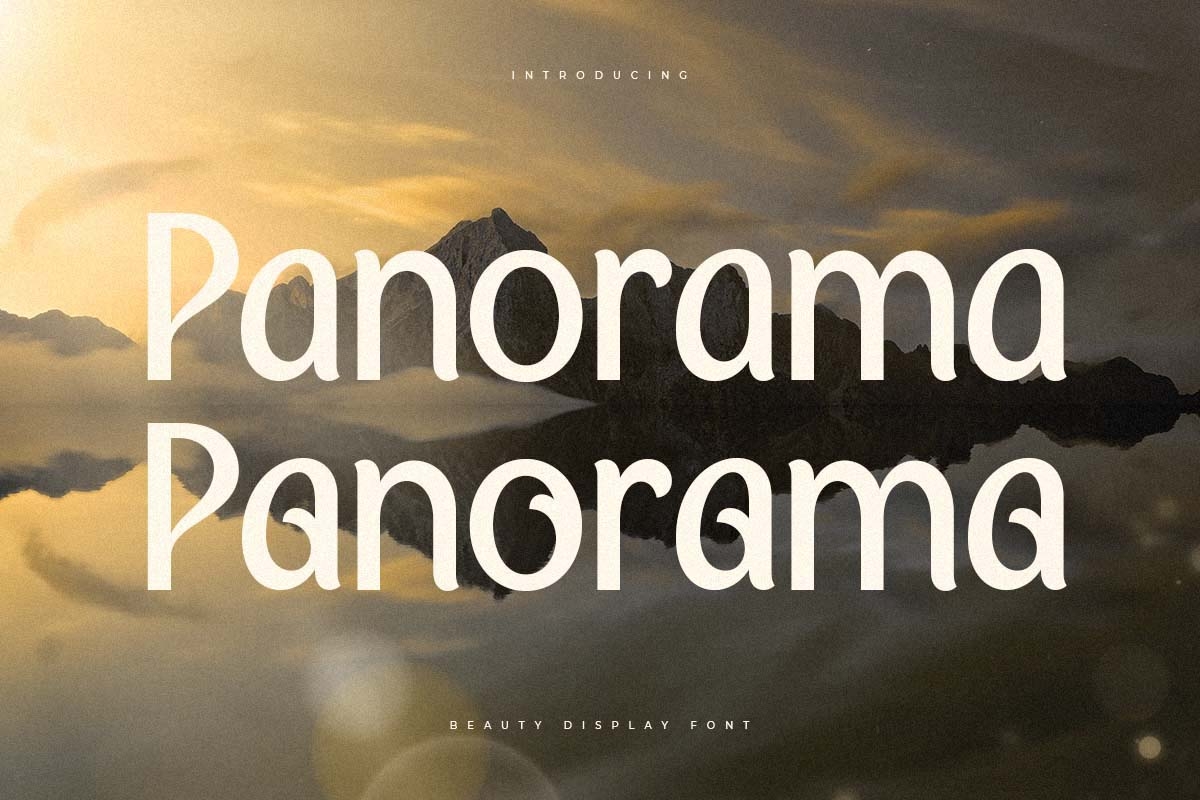
Panorama
-Beauty Display FontType Tester
A Modern Beauty font that we created special for luxury and elegant branding needs, with unique shape will be ready to add value of your brand. It so nice to leverage designer or product owner that need solutions to make their design look more stylish and modern. And specially for this font, We prepared any characters to help you create unlimited variations for your creative needs.